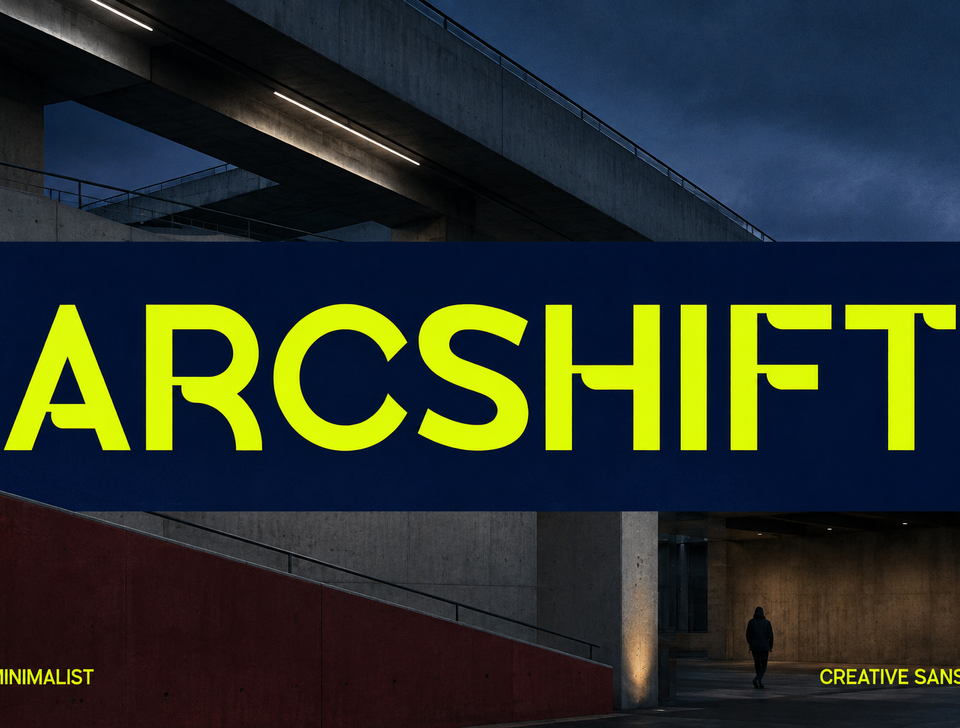
Arcshift — Modern Sans Serif Font Duo
Arcshift is a sleek modern sans serif font duo with clean lines, balanced proportions, and a contemporary professional voice. The Regular style delivers direct, stable typography, while the Italic style adds a subtle forward movement for emphasis, headlines, and directional visual systems. This modern font is built for designers working across branding, web design, editorial layouts, corporate identity, product logos, wedding card logos, clothing brands, packaging, posters, and contemporary display graphics.
Key Features: Arcshift includes standard OpenType ligatures through the liga feature and spacing refinement through the kern feature. These verified features support smoother typesetting in applications that expose OpenType controls. The package does not include verified stylistic alternates, swashes, ornaments, or alternate character sets. Use the Regular font for clear wordmarks, corporate communication, interface headings, and editorial text. Use the Italic font for contrast, supporting captions, campaign phrases, callouts, and energetic brand moments.
Applications: This clean sans serif works as a branding font, logo font, editorial font, web font, and professional display typeface. It suits technology startups, product identities, corporate presentations, digital interfaces, online portfolios, magazine headlines, fashion and clothing labels, wedding card logos, packaging, posters, social graphics, and marketing campaigns. Its balanced construction keeps short display text crisp while its Italic companion creates a useful two-style font system.